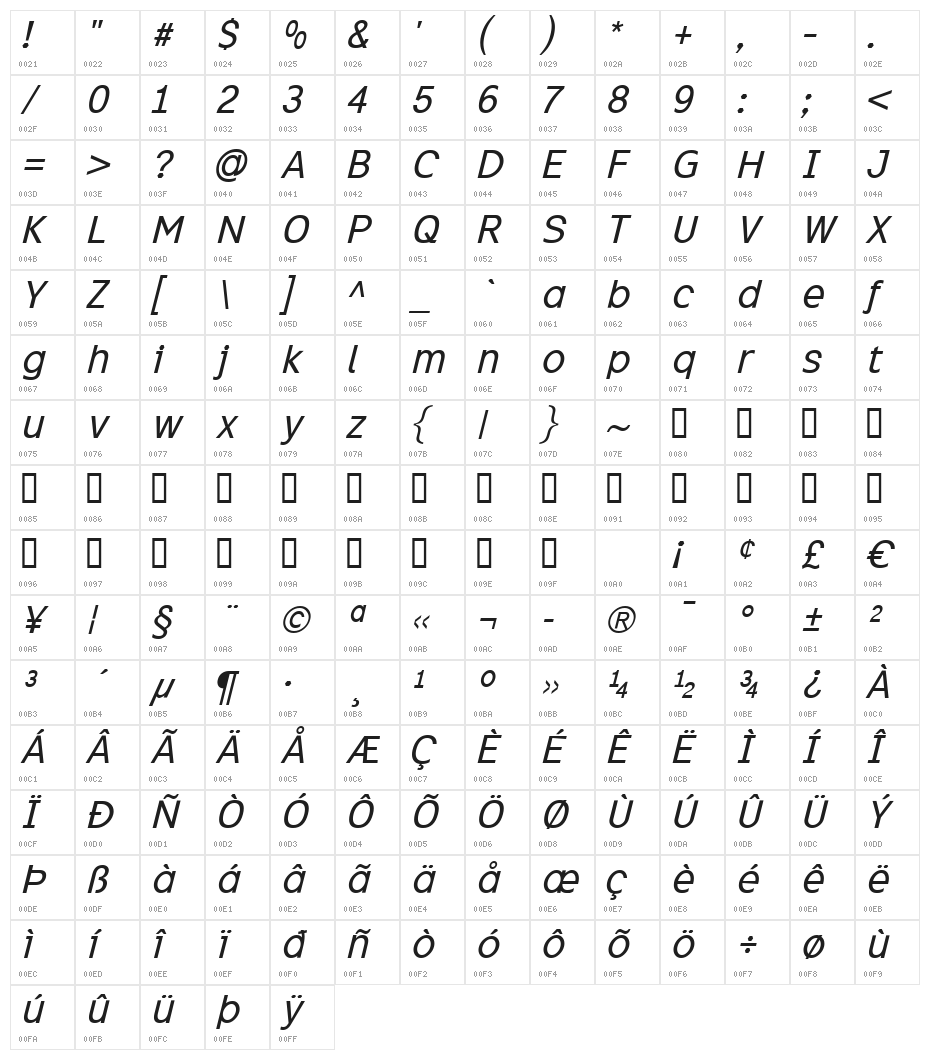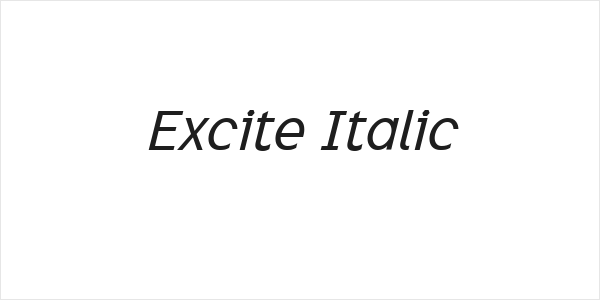
Excite Italic Font
Excite Italic Description
This font features a sleek and modern italic style, characterized by its smooth curves and slightly forward-leaning posture. The letters are well-proportioned, with a consistent stroke width that gives it a clean and professional appearance. The numerals are clear and distinct, making them easily readable. Special characters are elegantly integrated, maintaining the overall aesthetic. The font's design is versatile, suitable for a variety of applications where a contemporary and dynamic look is desired.
| Proposed Projects | Ideal for branding, advertising, and editorial design projects that require a modern and dynamic touch. |